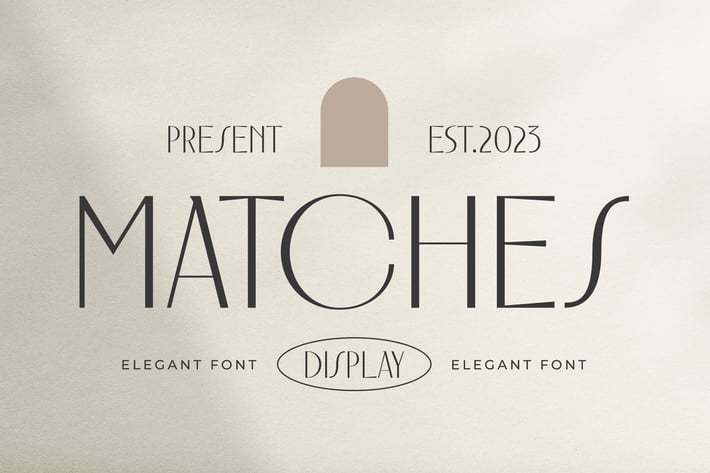
Matches - Elegant Font
Introducing "Matches" - an elegant font that radiates sophistication and timeless beauty, perfect for adding a touch of class to your designs.
With its graceful letterforms and refined details, "Matches" exudes luxury and charm, making it ideal for wedding invitations, upscale branding, editorial layouts, and more.
Embrace the elegance of "Matches" as it effortlessly enhances your designs with its graceful curves and stylish appearance.
Step into the world of refined typography with "Matches" and elevate your projects with its timeless allure.
– Lowercase
– Ligature
– Alternate
– Multilingual Support